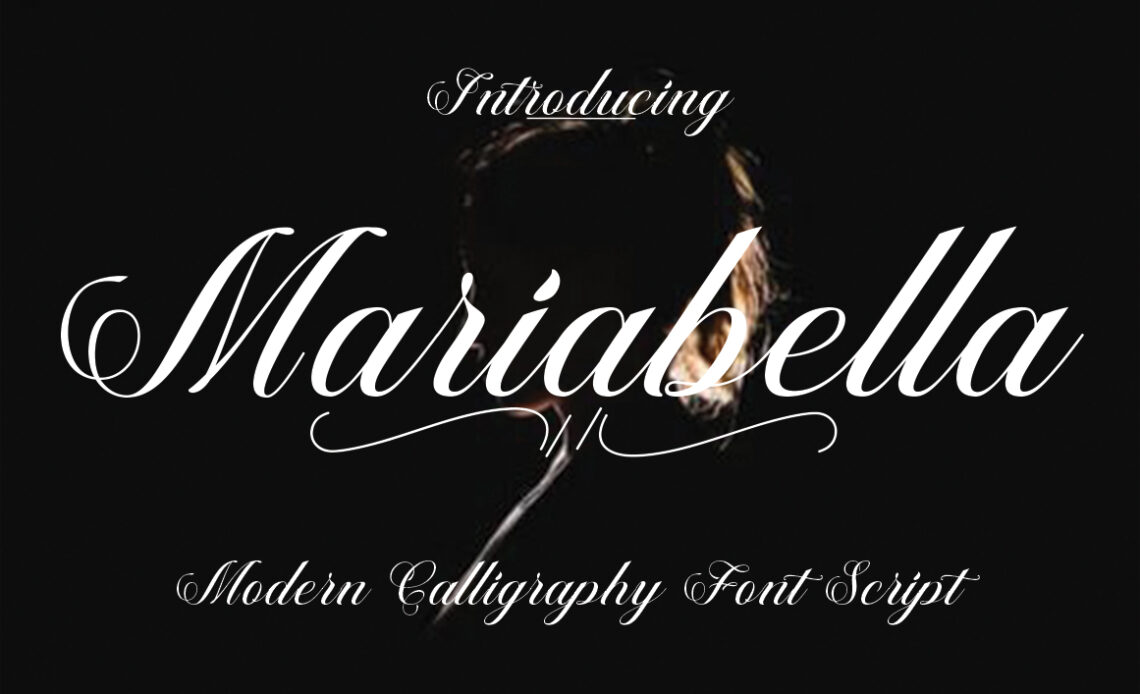
Mariabella Font
Behold, the Mariabella Font, a script font that will ignite your designs with sophistication and romance. This exquisite typeface, conjured by the masterful hands of Naqsya.Co, boasts a mesmerizing array of alternate characters, empowering you to weave designs that are as unique as your imagination.
With Mariabella, your creations will exude an air of timeless elegance, captivating audiences with its graceful curves and alluring ligatures. Let your words dance across digital canvases or printed pages, leaving an unforgettable imprint that whispers of love, longing, and whimsy.
Whether you seek to craft enchanting invitations, heartfelt letters, or enchanting branding materials, Mariabella is your font of choice. Its versatility knows no bounds, adapting effortlessly to various design styles, from classic to contemporary. The boundless possibilities it offers will ignite your creativity, inspiring you to conjure visual masterpieces that resonate with your audience's hearts.
Dare to embrace the allure of Mariabella and elevate your designs to new heights of sophistication and romance. Its intricate details and customizable features will unleash your artistic potential, allowing you to craft designs that captivate, enchant, and leave an enduring impression.
Indulge in the beauty of Mariabella today and let your designs blossom with elegance, charm, and a touch of timeless enchantment.